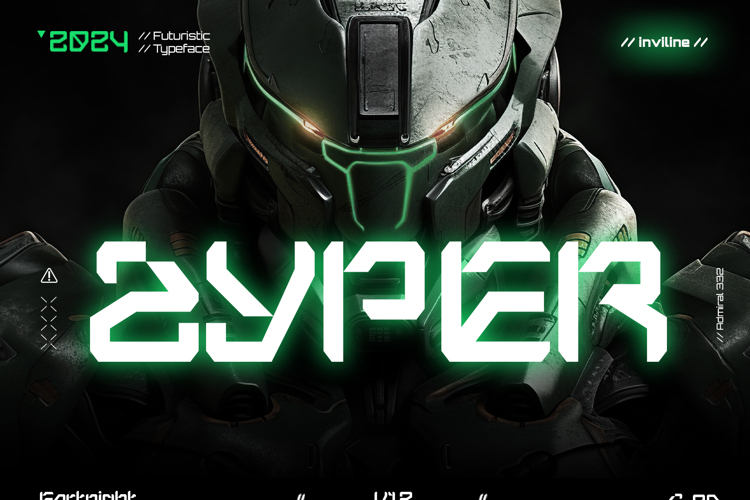
Zyper Font
Bring a touch of futuristich and tech to your designs with this meticulously crafted font collection. Perfect for adding a Sci-fi vibes to your branding, packaging, logos, and more.